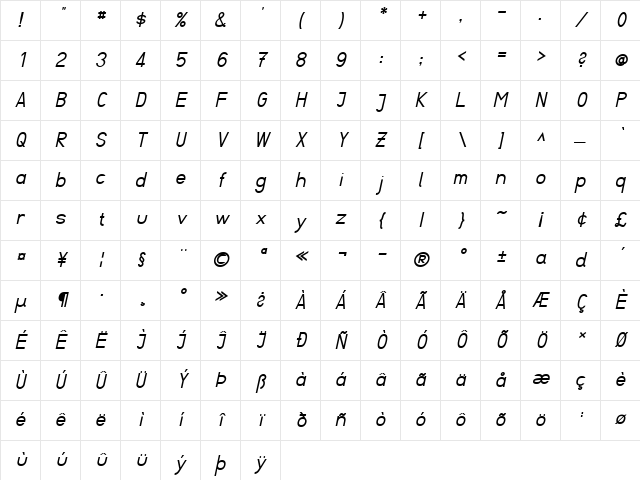
Fibel Sued Italic
Foundry: Peter Wiegel
Designer: Peter Wiegel
Design Context for Fibel Sued
Fibel Sued is a composed and adaptable typeface that performs quietly and consistently across a wide range of design contexts. The slanted form adds forward momentum and visual energy.